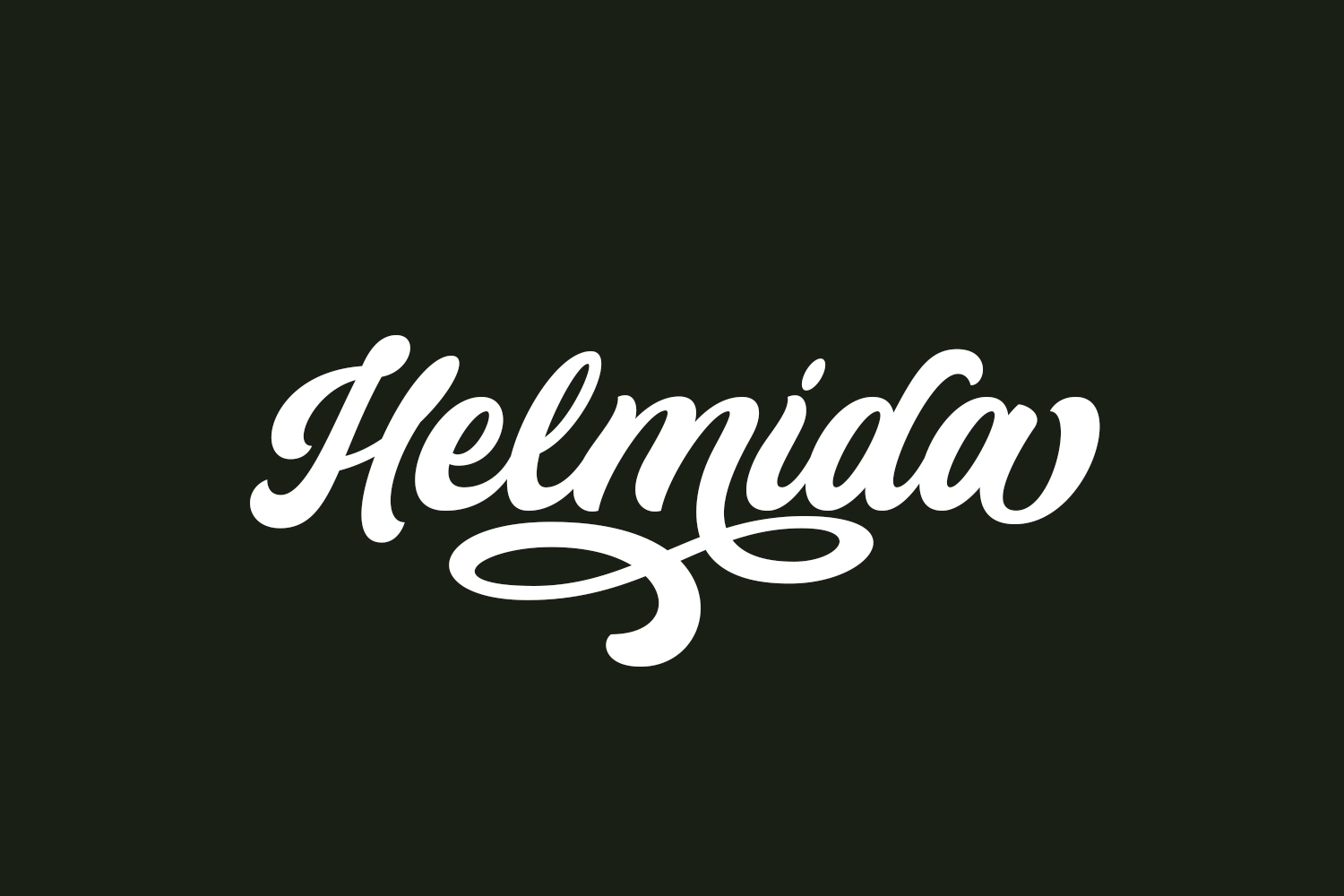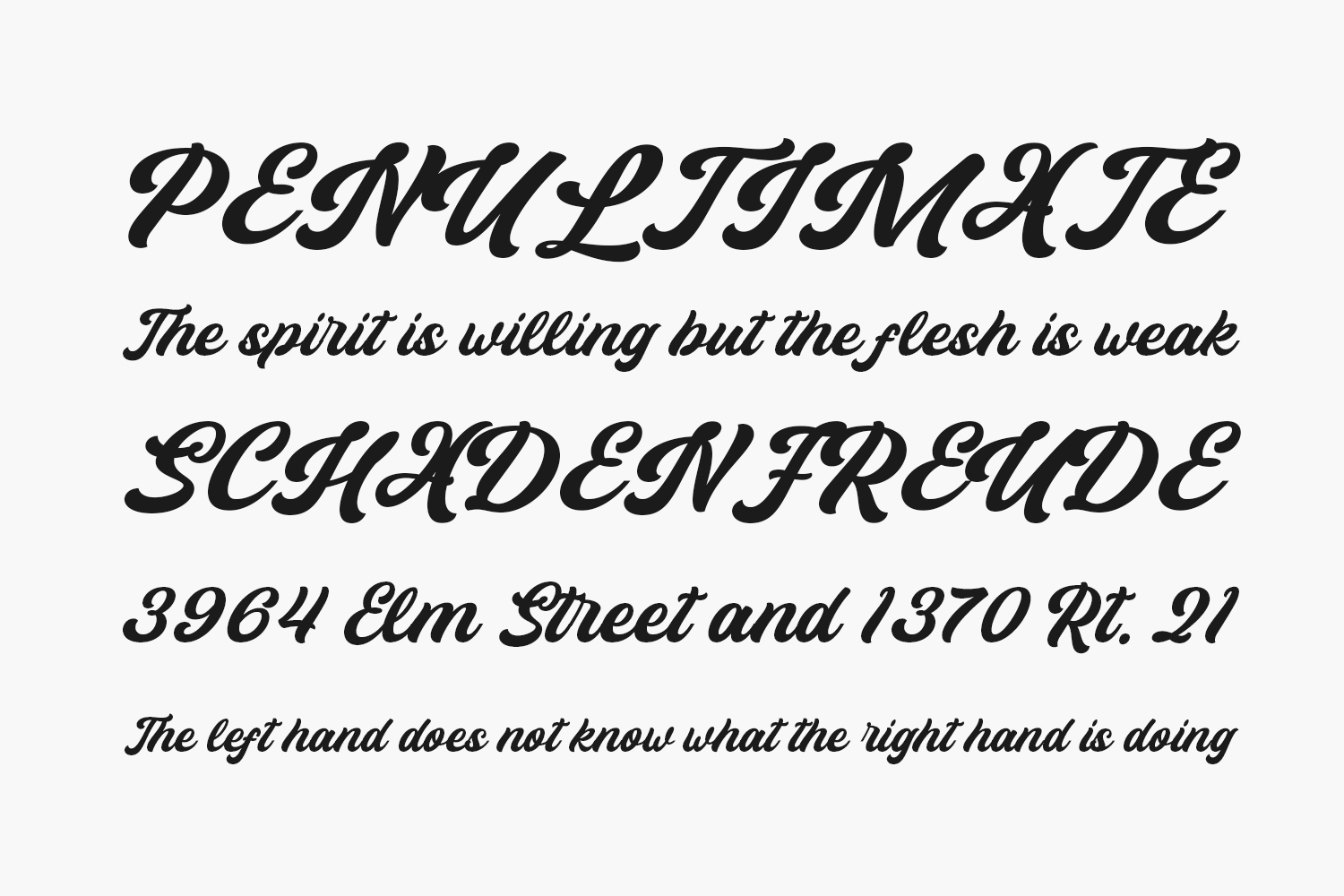
Helmida Free Font, a unique and elegant vintage script font, will captivate you with its exquisite charm, making it the perfect choice for crafting stunning designs. Helmida Free Font is free for personal use only. Please purchase the full version for commercial use.
Designed by Ahwe Project